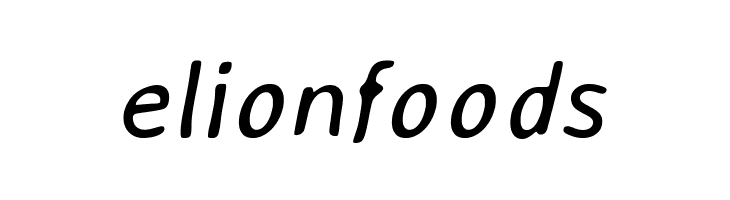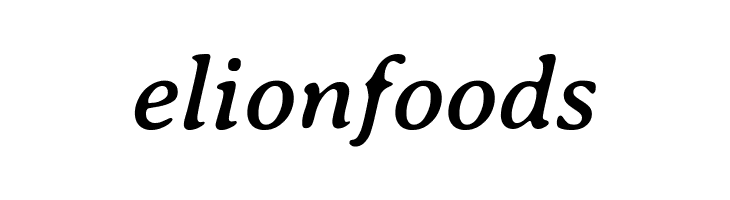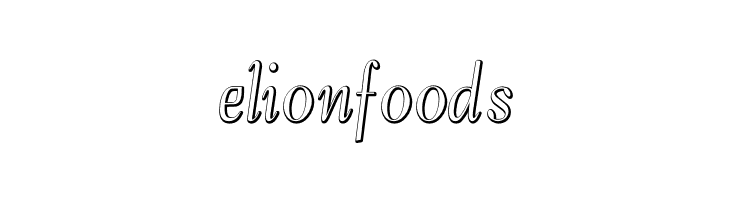
( Fonts by Juan Casco - www.juancasco.net )
A bold, narrow font with sharp serifs and an elegant, sophisticated style.
( Fonts by Adien Gunarta - fontasticindonesia.blogspot.com )
A classic serif font with elegant serifs and medium contrast, ideal for sophisticated designs.
( Fonts by www.3r4u.de )
A flowing, elegant script font with high contrast and connected characters.
( Fonts by Mans Greback - www.mawns.com )
A bold, decorative font with sweeping strokes and intricate curves.
( Fonts by Grzegorz l - www.glukfonts.pl )
A delicate and elegant font with thin, elongated strokes and a refined appearance.
( Paul Lloyd Fonts )
An elegant and modern font with clean lines and a sophisticated design.